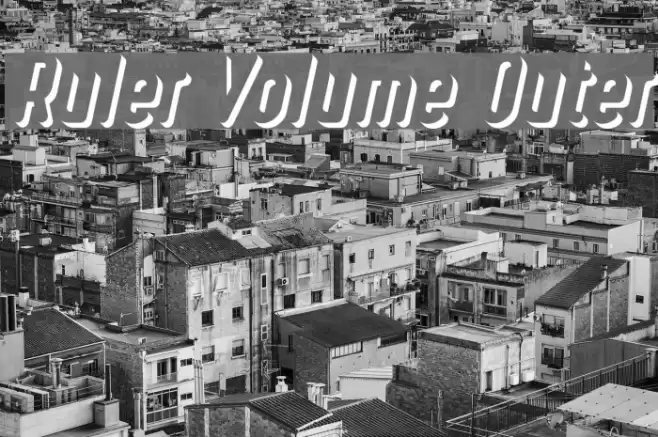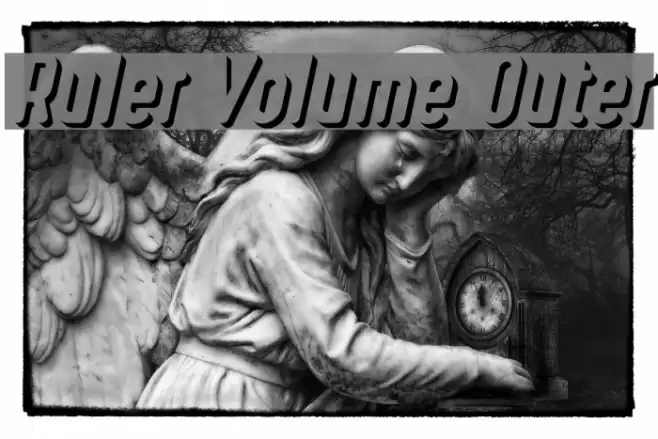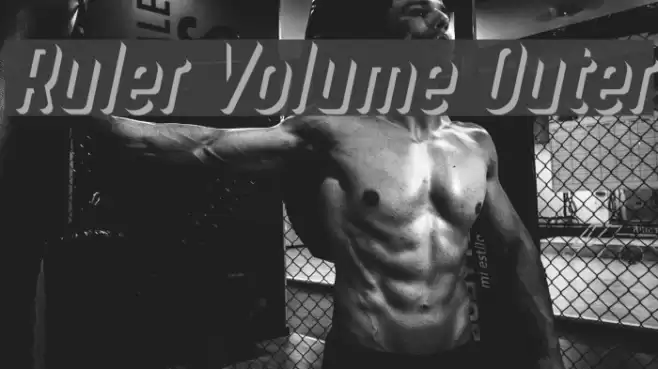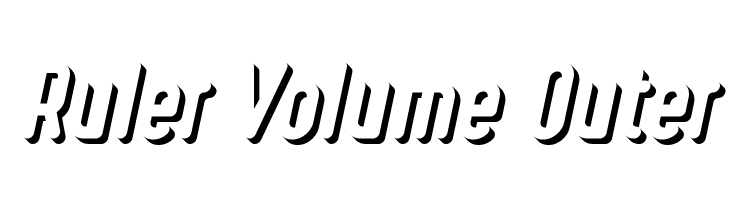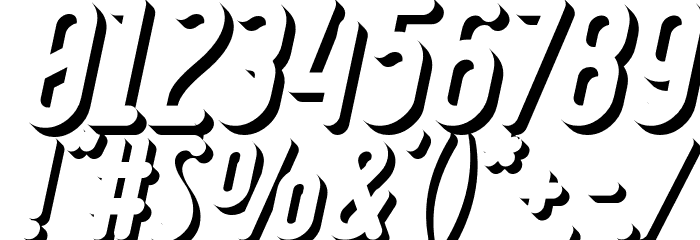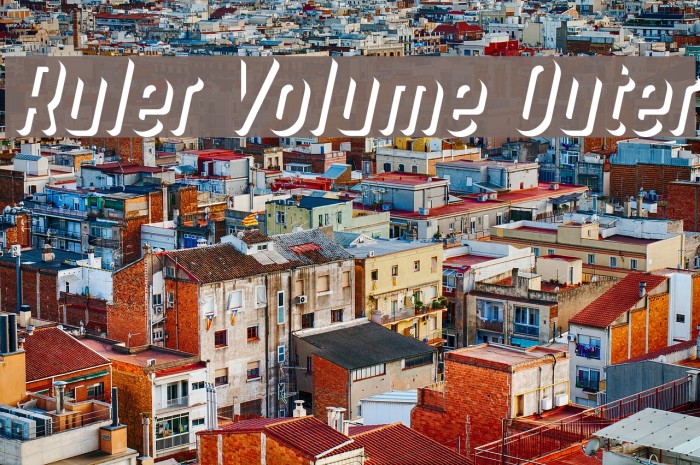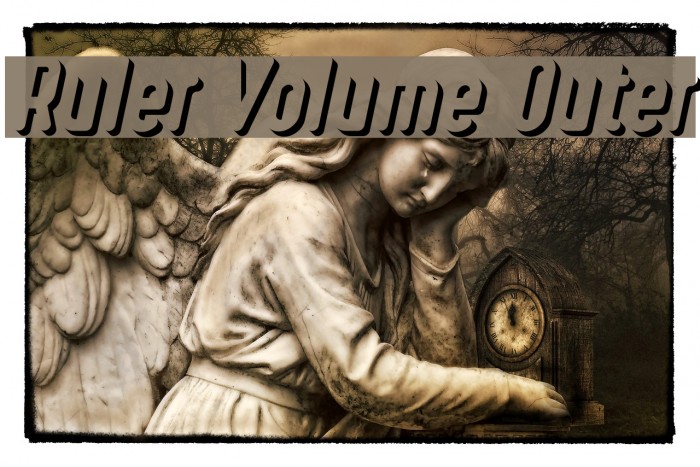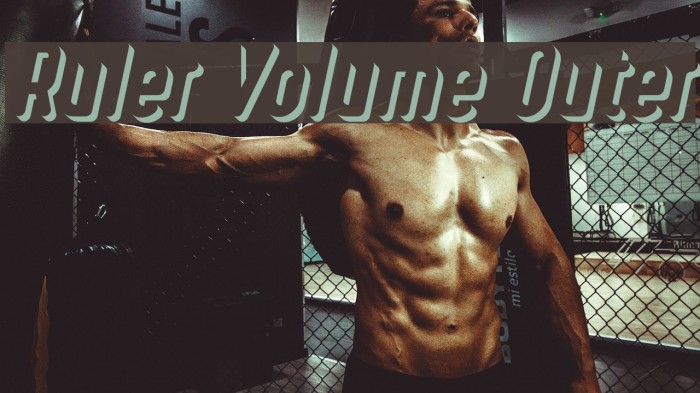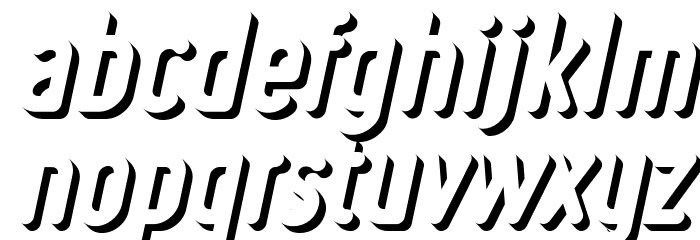
Ruler Volume Outer Font
Ruler Volume Outer Description
This font features a bold and dynamic style with a three-dimensional effect, achieved through the use of shadows and angled lines. The uppercase and lowercase letters are slanted, giving a sense of movement and energy. The numerals and special characters maintain this cohesive style, ensuring consistency across all glyphs. The font's design is both modern and eye-catching, making it suitable for projects that require a strong visual impact. Its unique appearance is ideal for creating standout headlines or logos.
A bold, slanted font with a 3D effect and dynamic style from Uncategorized fonts.
- Proposed Projects: Ideal for branding, poster design, and any project needing a bold, modern look.